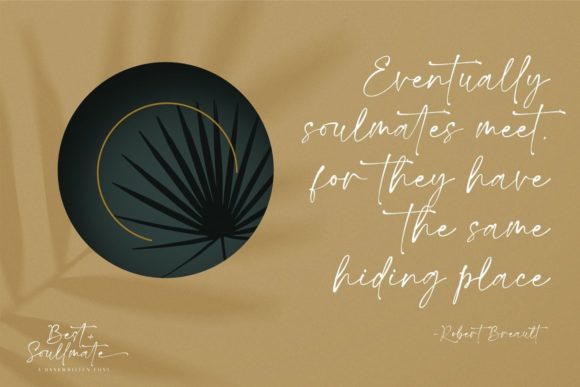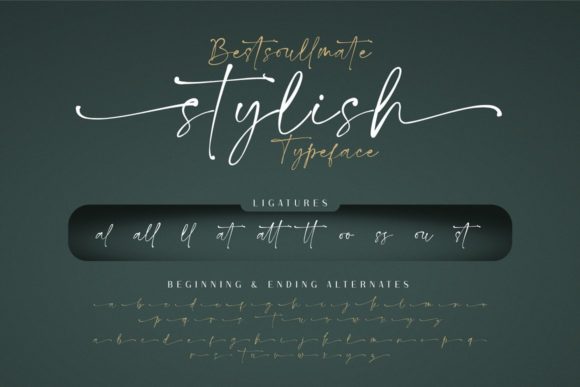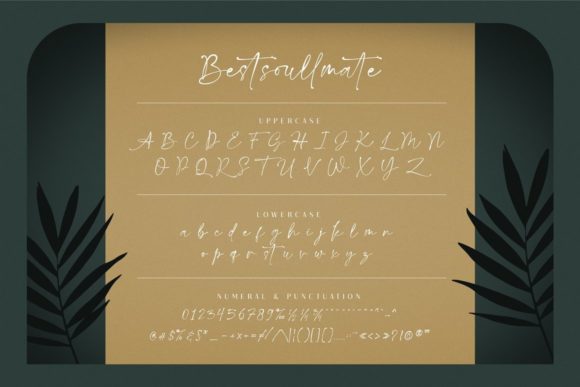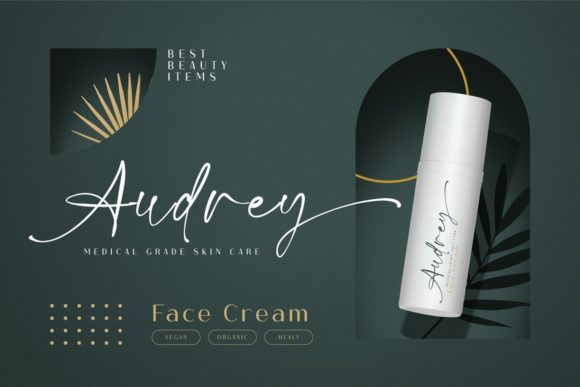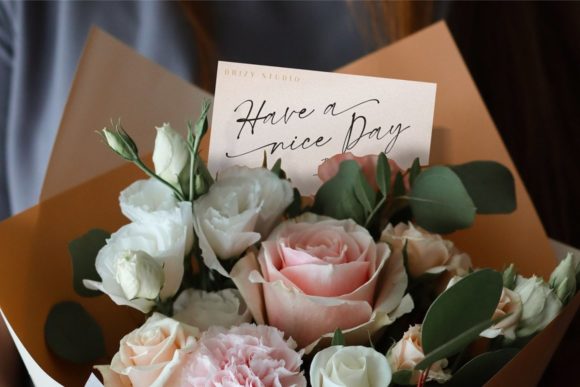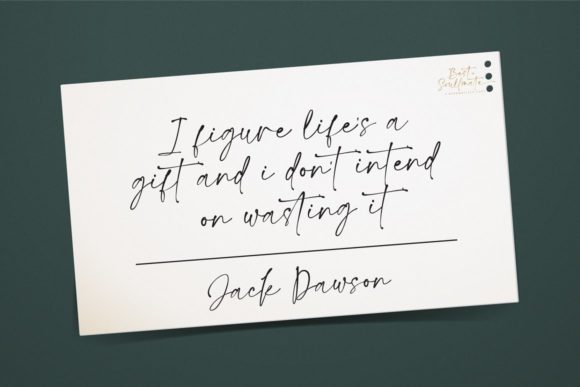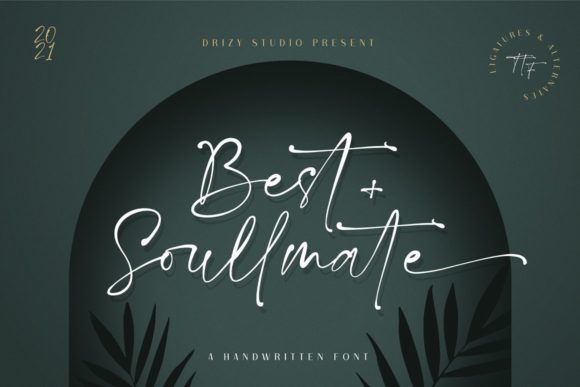
The Quest for the Perfect Soulmate Font
I’ll never forget the design struggle I faced while working on a romantic getaway brochure. My client wanted a font that exuded warmth, playfulness, and a touch of sophistication. I scoured the internet, tried out countless fonts, but nothing seemed to fit the bill. That was until I stumbled upon the **Best Soulmate** font. It’s a stylish and laid-back script font that’s been a game-changer for my designs. In this article, I’ll share my love for Best Soulmate, its features, and provide a comprehensive guide on how to use it.
What I Love About Best Soulmate
- ✨ PUA encoded: Easy access to all glyphs and swashes, making it a breeze to add a personal touch to your designs.
- ✅ Stylish and laid-back: Best Soulmate has a unique blend of elegance and casual charm, perfect for projects that require a touch of sophistication.
- 💫 Highly versatile: This font can be used for a wide range of projects, from romantic getaways to wedding invitations, and even everyday design tasks.
While Best Soulmate is an amazing font, there are a few minor quirks to be aware of:
- 🤔 Glyph overload: With so many glyphs and swashes available, it can be overwhelming to navigate. Take some time to explore the font and get familiar with its features.
The Story Behind Best Soulmate
Best Soulmate was designed with love and care by a talented font creator. The goal was to craft a font that’s both stylish and approachable, perfect for designers and crafters who want to add a touch of personality to their work. The design process involved experimenting with different letterforms, swashes, and glyphs to create a unique and versatile font.
A: PUA (Private Use Area) encoding allows font creators to add custom glyphs and swashes that can be accessed easily. This means you can use a wide range of special characters and ornaments to enhance your designs.
Q: Is Best Soulmate suitable for body text?
A: While Best Soulmate is a beautiful font, it’s primarily designed for display purposes. For body text, you may want to consider a more legible font. However, feel free to experiment and adjust the font size and settings to suit your needs.